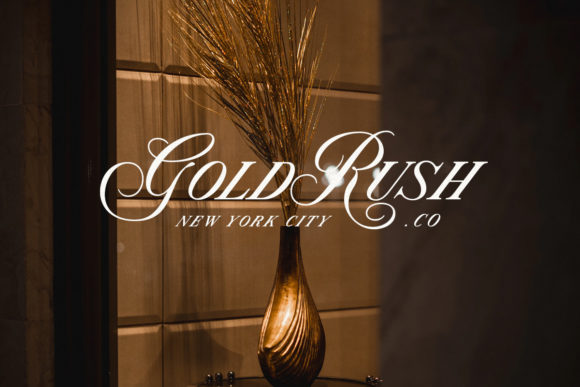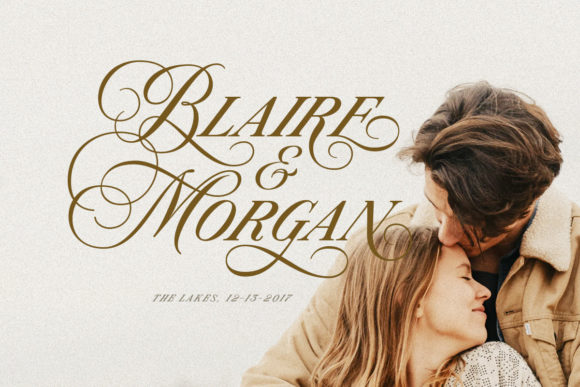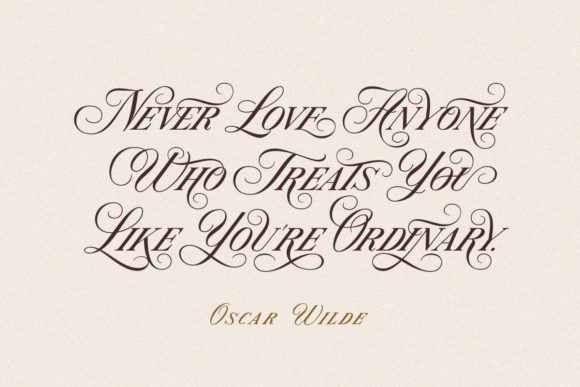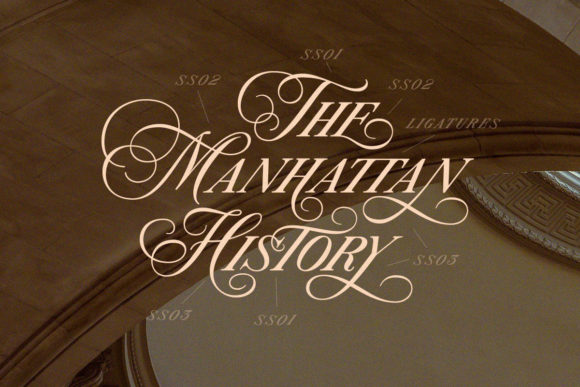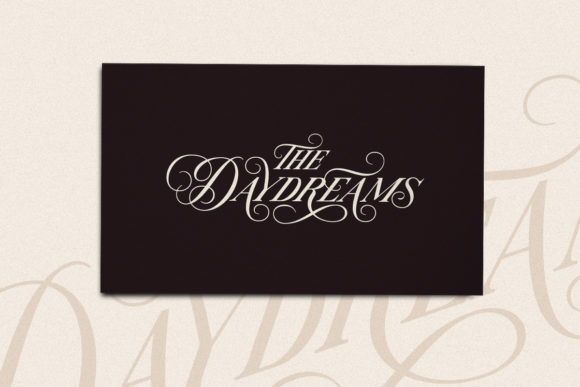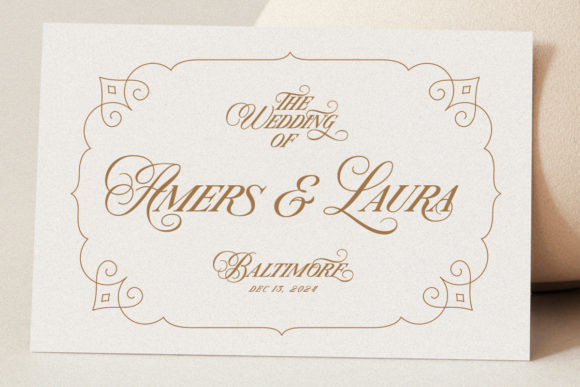
Introduction to Modern Prestige Font
Modern Prestige is a beautiful and refined script font.
It has a classy, elegant and modern look that can be used for logos, branding, invitations, stationery, wedding designs, social media posts, and much more This font is PUA encoded which means you can access all of the amazing glyphs and ligatures with ease.
Key Features of Modern Prestige Font